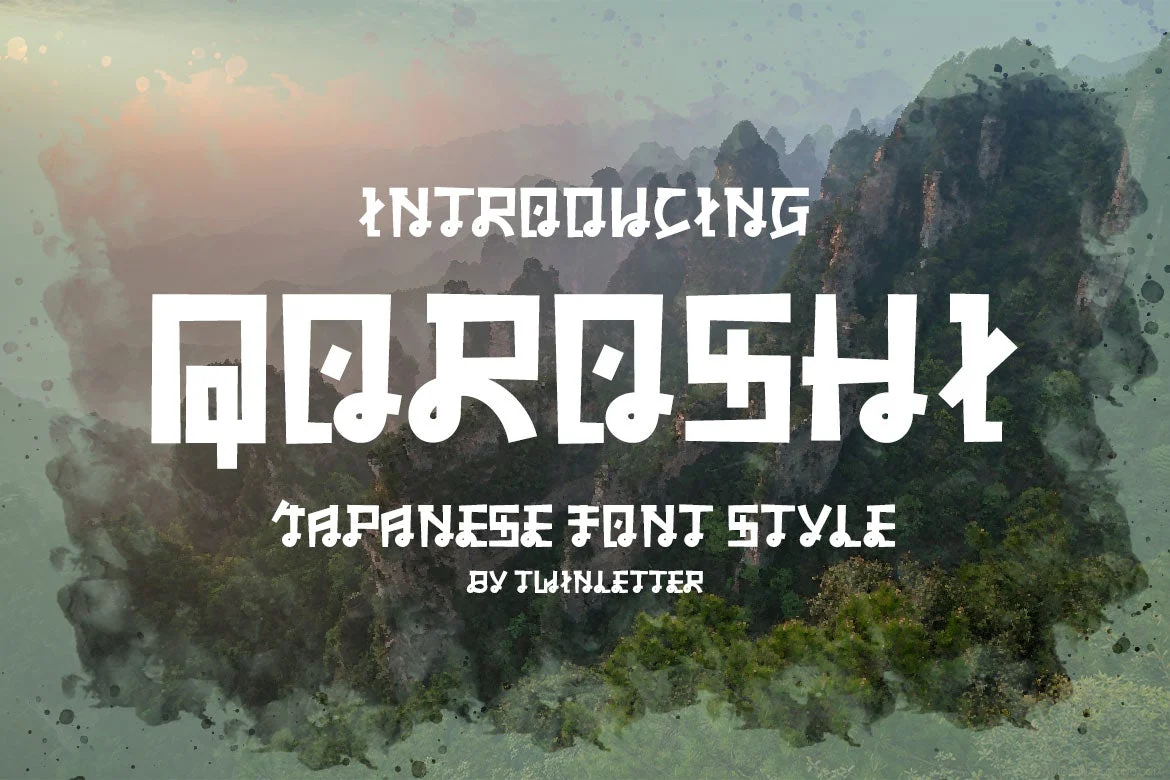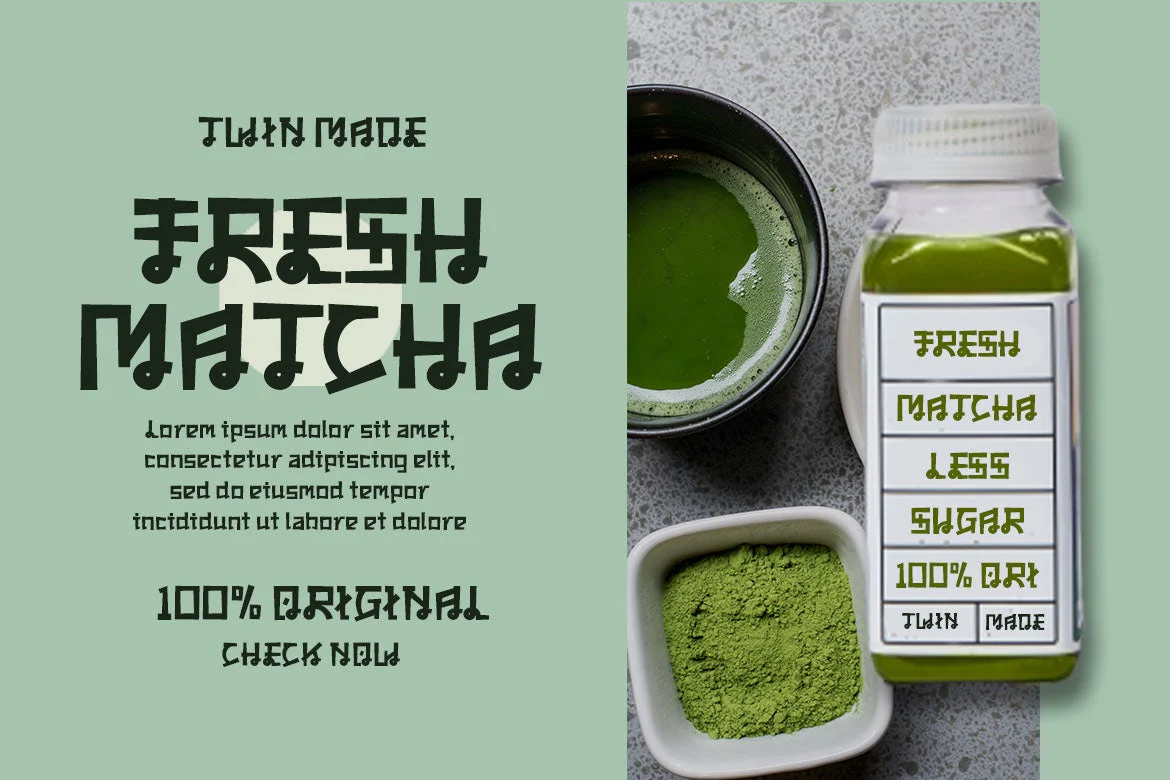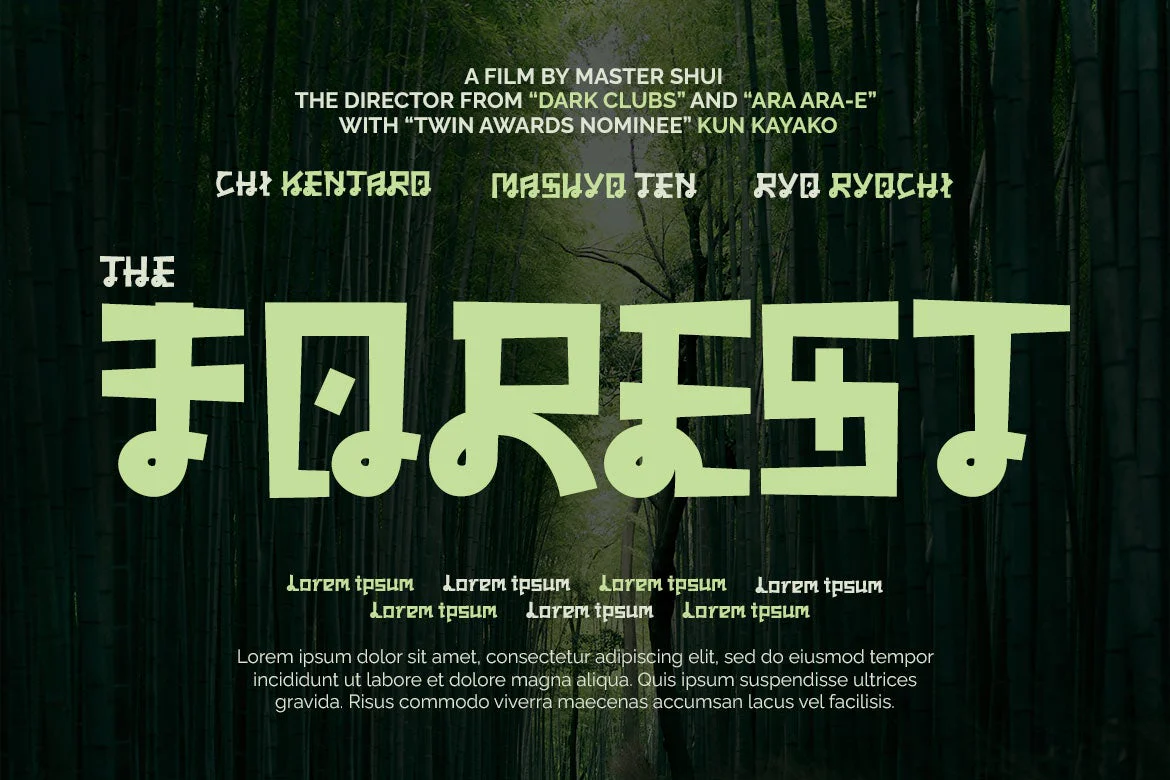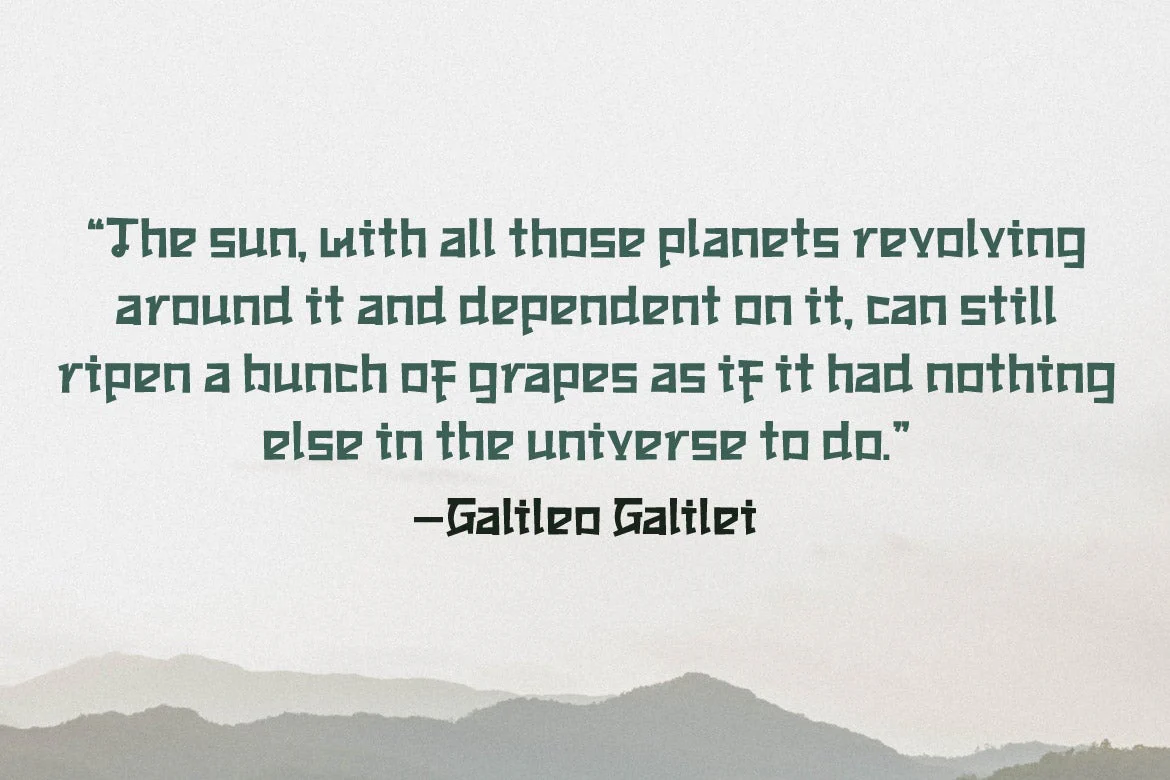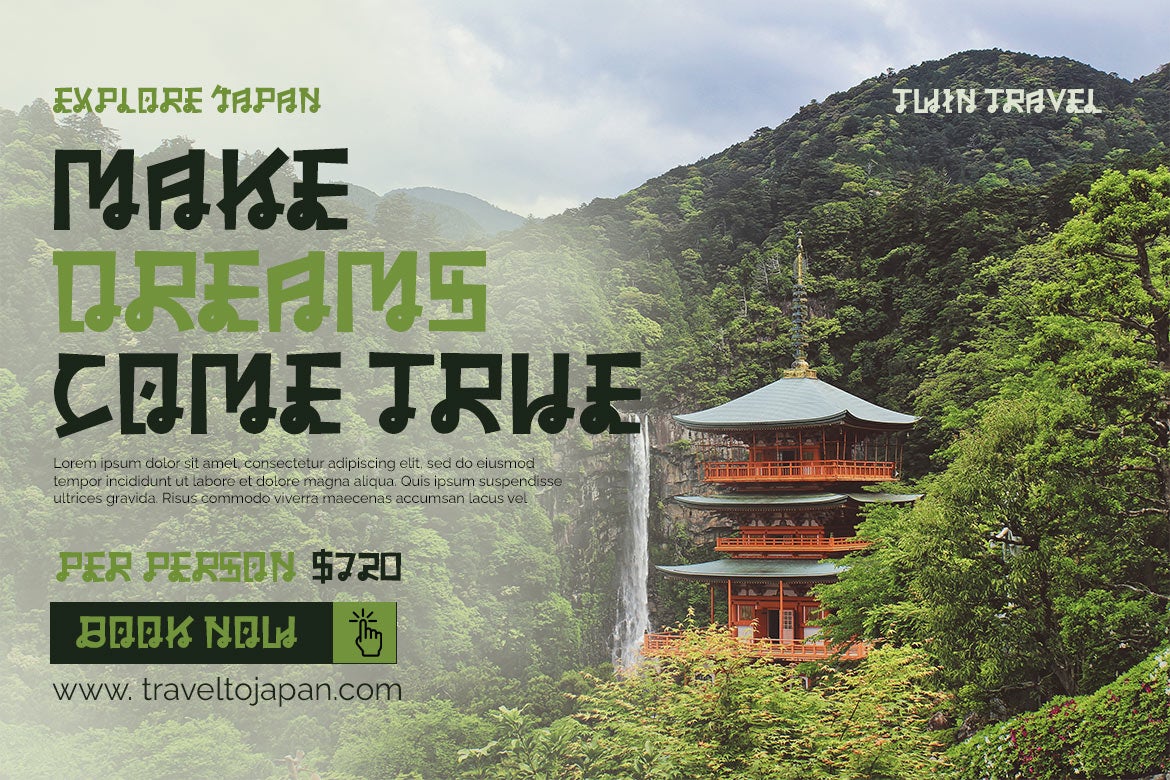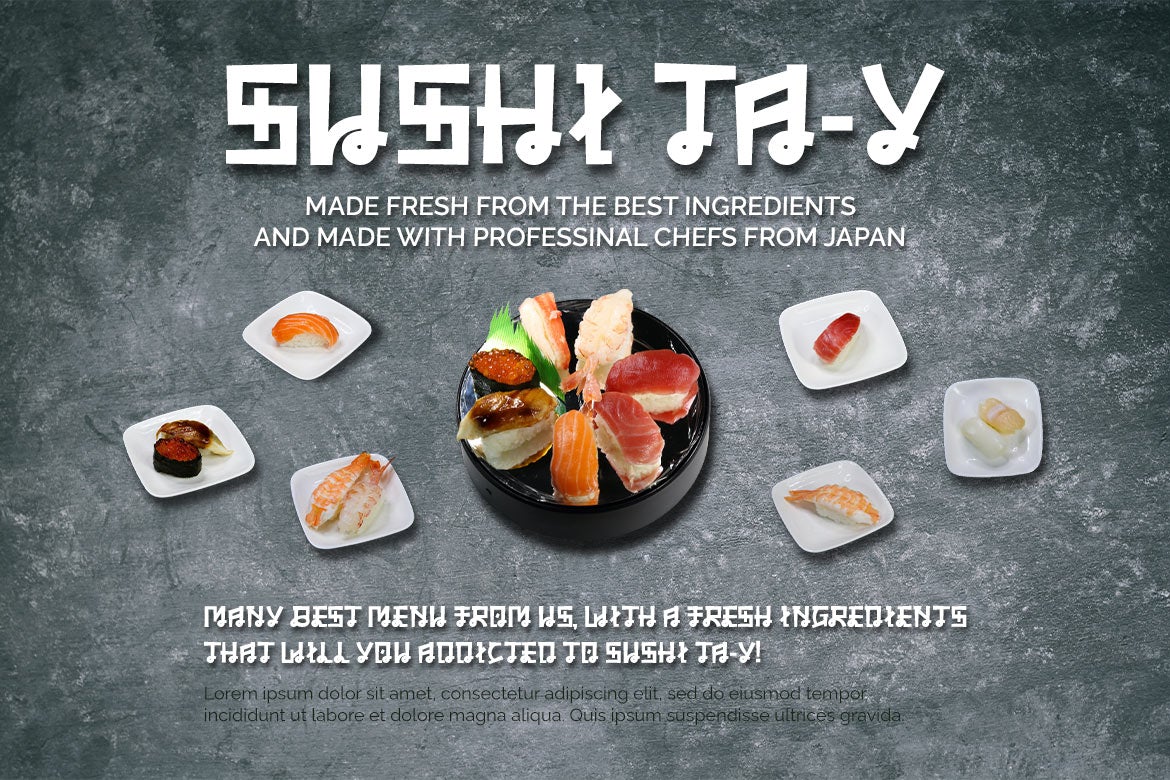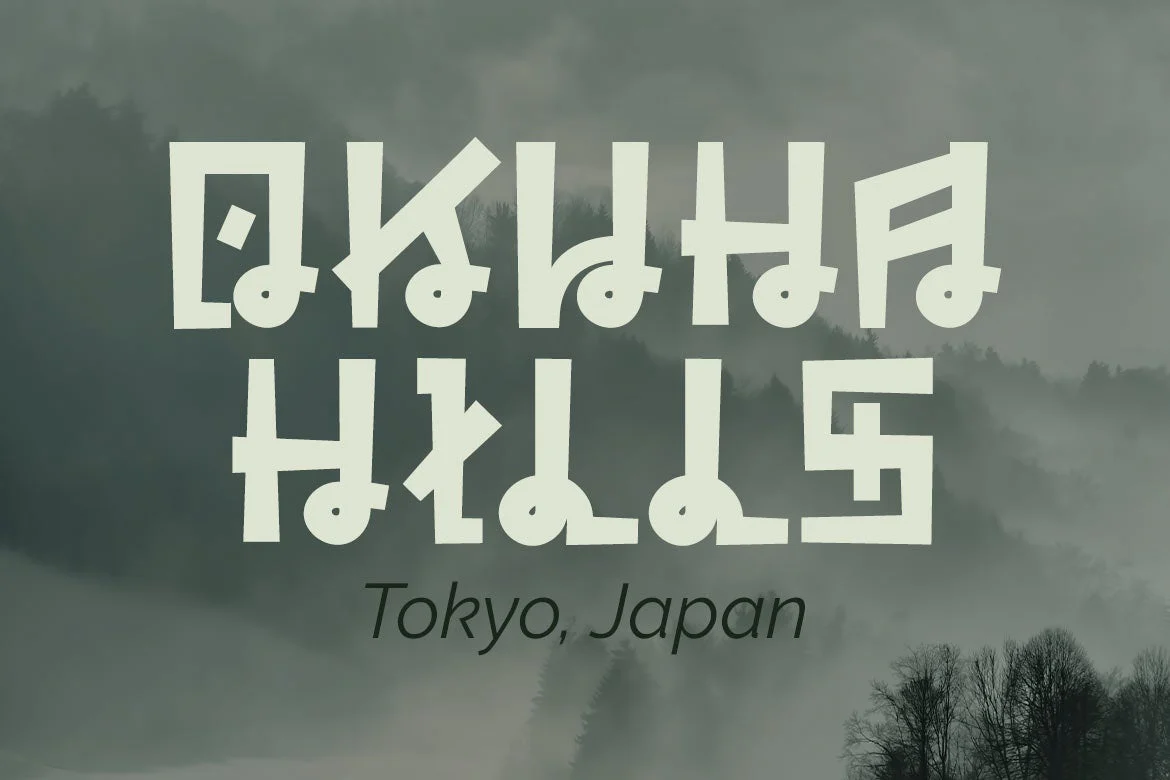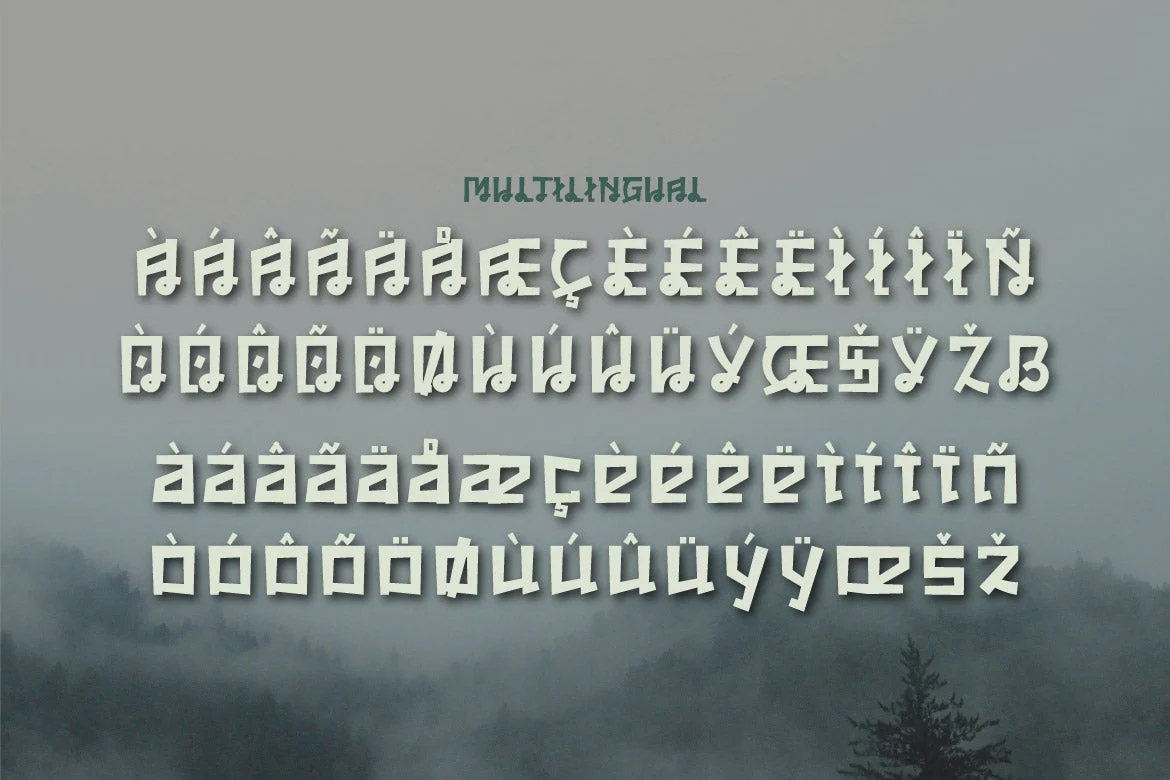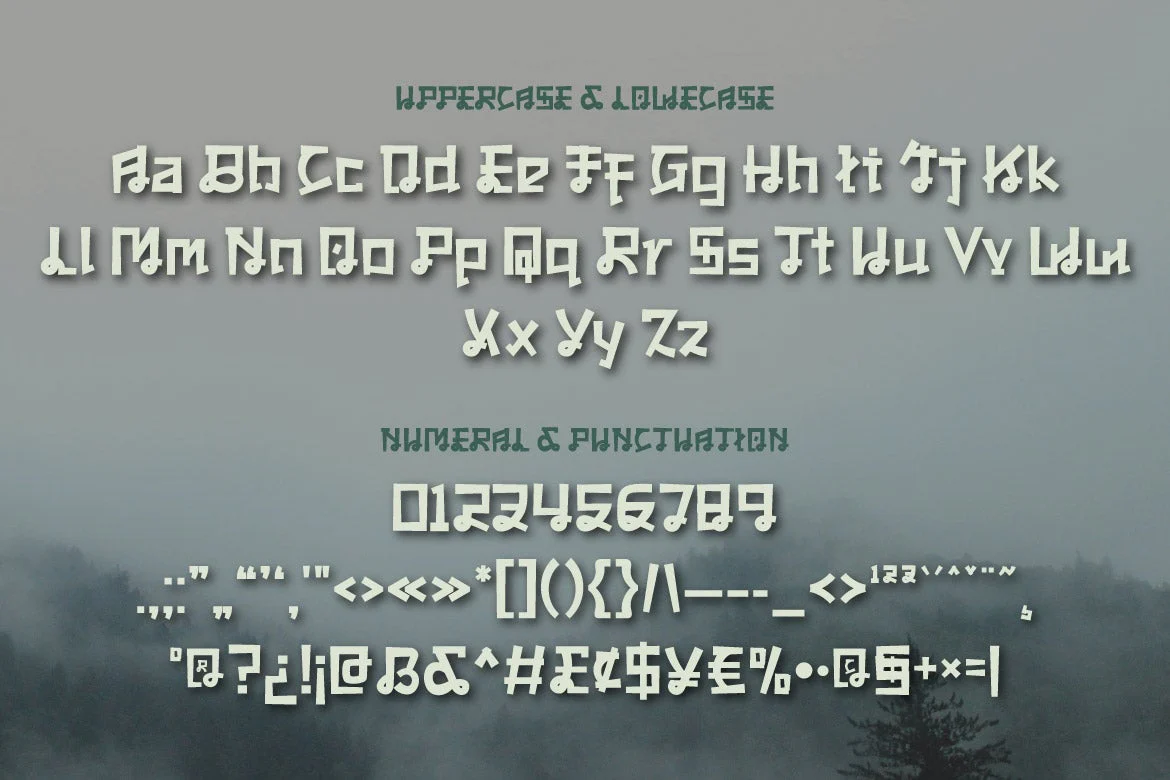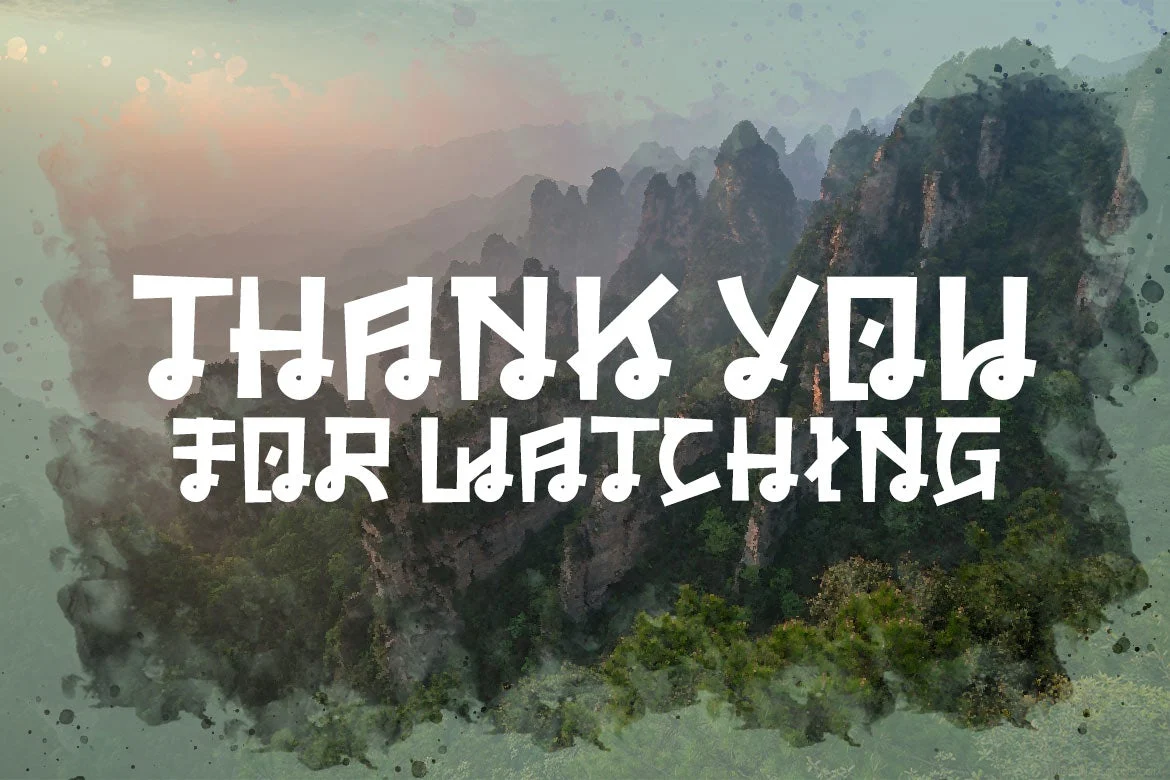
QOROSHI - Japanese style font
Qoroshi is a Japanese-style font with a distinctive display theme in each letter that may turn your project into a natural continent and give it a unique impression. Each lovely curve in each letter character makes your project memorable in the minds of your customers.
Logotypes, food banners, branding, brochure, posters, movie titles, book titles, quotes, and more may all benefit from this font.
Of course, using this font in your various design projects will make them excellent and outstanding; many viewers are drawn to the striking and unusual graphic display.
Start utilizing this typeface in your projects to make them stand out.
Qoroshi is a Japanese-style font with a distinctive display theme in each letter that may turn your project into a natural continent and give it a unique impression. Each lovely curve in each letter character makes your project memorable in the minds of your customers.
Logotypes, food banners, branding, brochure, posters, movie titles, book titles, quotes, and more may all benefit from this font.
Of course, using this font in your various design projects will make them excellent and outstanding; many viewers are drawn to the striking and unusual graphic display.
Start utilizing this typeface in your projects to make them stand out.